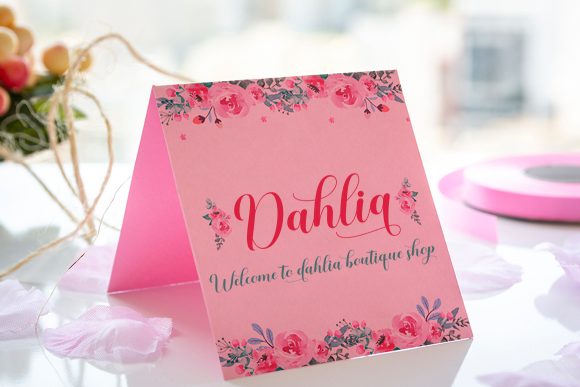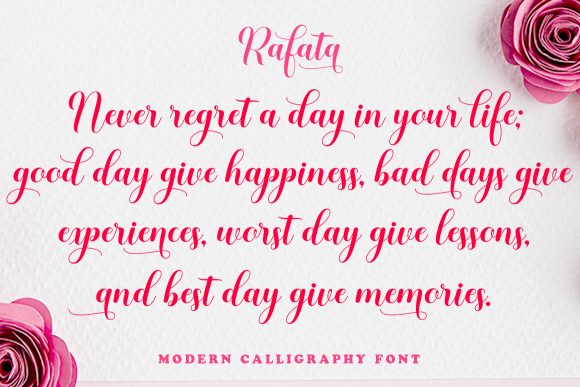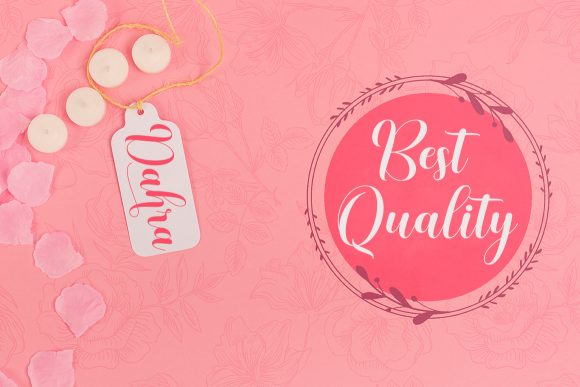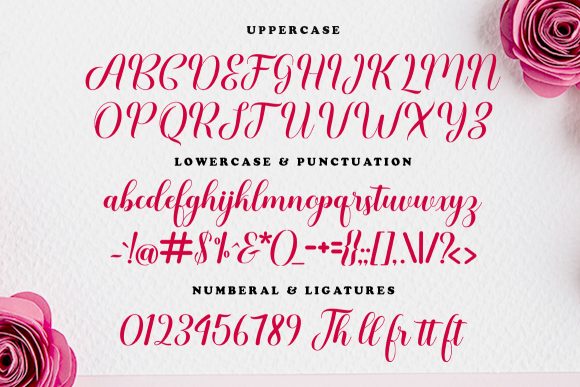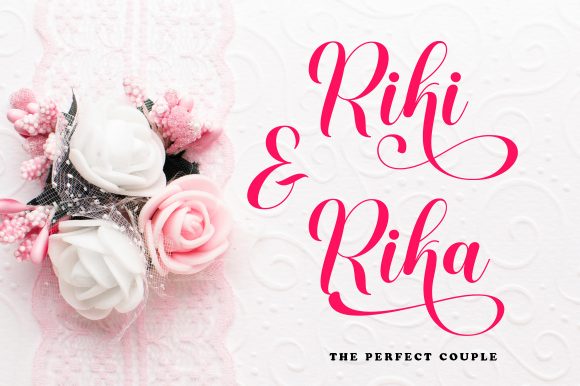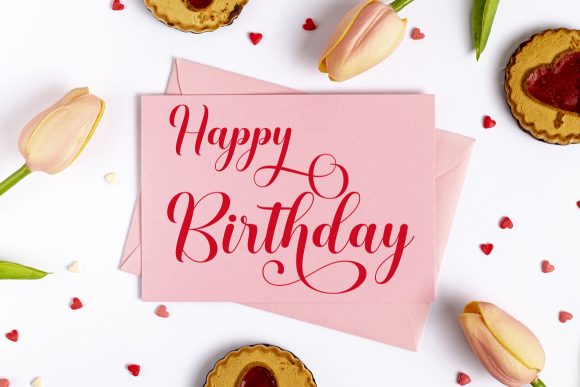
Introduction to Rafata Font
Rafata is a romantic and sweet calligraphy typeface with characters that dance along the baseline.
It has a casual, yet elegant touch This font is PUA encoded which means you can access all of the glyphs and swashes with ease.
Key Features of Rafata Font
Why Choose Rafata Font?
Rafata Font offers exceptional quality and versatility, making it a valuable addition to your design toolkit. Whether you’re creating for personal projects or commercial use, Rafata Font delivers professional results.